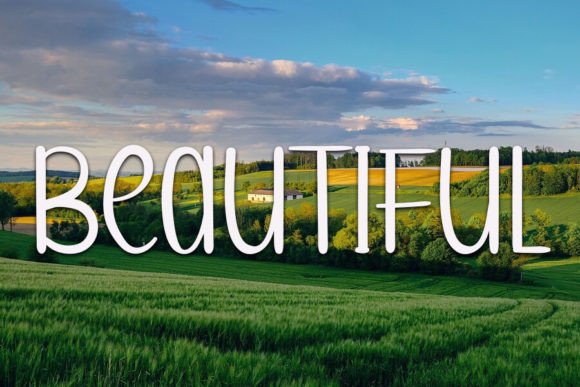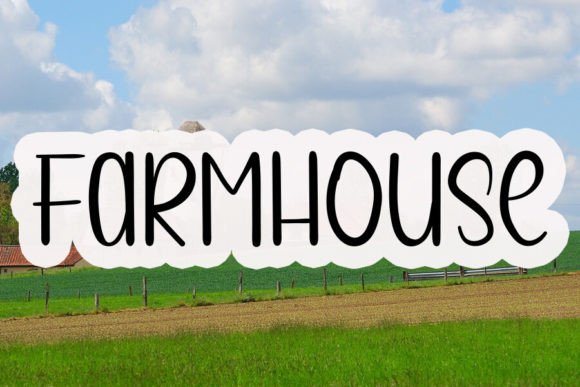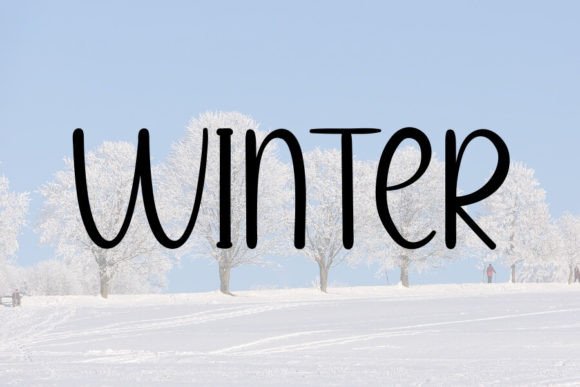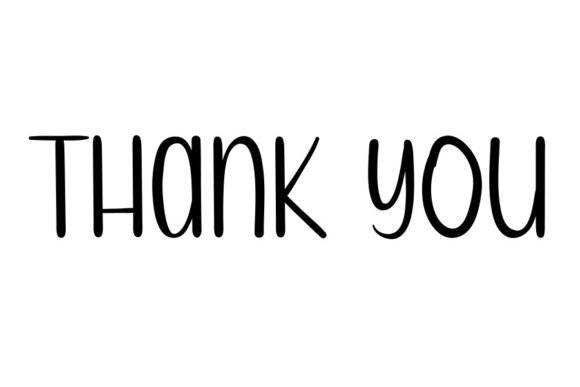
The Perfect Font for a Fun Friday
Who hasn’t been there – sitting at your desk, staring at a blank page, and suddenly, the creative spark ignites. Your mind starts racing with ideas, and before you know it, you’re in the zone, and your project is coming to life! It’s moments like these that remind us why we love what we do, and it’s exactly what the Friday Font is designed to help you capture.
This charming handwritten font is perfect for adding a personal touch to any project, whether it’s a handmade card, a digital design, or a presentation. With its friendly and approachable feel, the Friday Font has the power to elevate your work and make it truly special. For designers, this font is a valuable addition to their toolkit, offering a unique way to express themselves and connect with their audience.
Key Features of Friday Font
- Font Family: Friday Font is a sans-serif font family designed to evoke a sense of modernity and playfulness.
- Unique Characteristics: The font family features a unique, hand-drawn feel with subtle irregularities and imperfections, giving it a friendly and approachable appearance.
Friday Font Review
As a designer, I was excited to dive into the Friday Font and see what it had to offer. ✨ Here are some of its standout features:
- Unique blend of modern and vintage styles, making it perfect for creating a unique aesthetic.
- Wide range of weights and styles to choose from, allowing for a high degree of customization.
- Great legibility, making it suitable for both body text and headings.
However, like any font, the Friday Font also has some limitations: ⚠️
- May not be the best choice for small text sizes, as the letterforms can become quite ornate.
- Some characters, such as the ampersand, may require additional adjustments to fit the desired aesthetic.
Overall, the Friday Font is a great addition to any designer’s toolkit. While it may have some limitations, its unique style and versatility make it a great choice for a wide range of projects.
Practical Application Guide: Friday Font
Tips for Getting the Most Out of Friday Font
To maximize the effectiveness of the Friday Font, use it in conjunction with bold or italic text to create visual hierarchy and emphasis. You can also use the font in combination with other design elements, such as icons and graphics, to create a cohesive and engaging visual identity.
The Friday Font is ideal for use in social media graphics, blog posts, and marketing materials. It’s also a great choice for creating invitations, posters, and flyers.
Q: What is the recommended font size and line height for using the Friday Font in web design?
The recommended font size and line height for using the Friday Font in web design are 16px for font size and 1.5 for line height. These values are suitable for most web applications and provide a clean and readable experience for users. However, you may need to adjust these values based